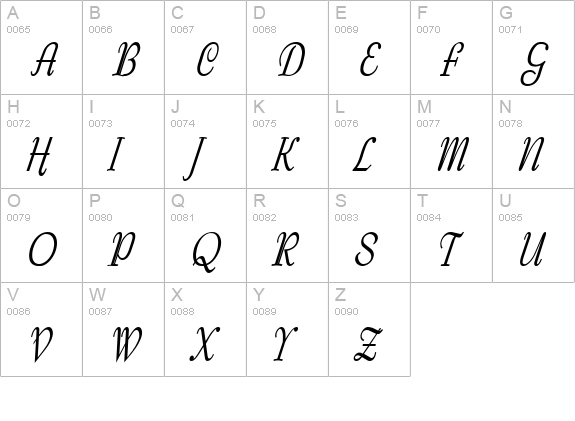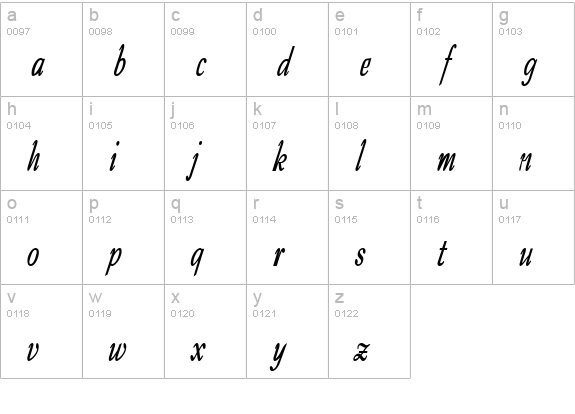
Tango Condensed BoldItalic Font Details
Tango Condensed BoldItalic is a distinctive, condensed-width variant in the Tango typeface family \xE2\x80\x94 well suited to design and typography projects.
Tango Condensed BoldItalic font exudes a captivating and modern charm that will instantly elevate any design project. Its sleek and sophisticated letterforms are expertly crafted with precision and finesse, creating a visually stunning display of typographic elegance. The bold and italic nature of this typeface adds a touch of flair and excitement, making it perfect for headings, titles, and other eye-catching elements. With its condensed proportions, Tango Condensed BoldItalic font allows for efficient use of space without compromising legibility. Whether it's for print or digital media, this versatile font ensures that your message is conveyed with utmost clarity and impact. The strong, slanted strokes of each character effortlessly draw attention, while maintaining a sense of professionalism and refinement. What sets Tango Condensed BoldItalic font apart is not just its exceptional design, but also its accessibility. This font is freely available to download at FontsMarket.com, allowing designers and creatives to enhance their projects without breaking the bank. With just a few clicks, you can have this remarkable font at your fingertips, ready to add a touch of sophistication and style to your designs. Embrace the power of Tango Condensed BoldItalic font and let its bold and italic charm elevate your next project to new heights. Whether it's for branding, advertising, or any other creative endeavor, this font is sure to leave a lasting impression. Download it for free at FontsMarket.com and unlock the endless possibilities of this captivating typeface.